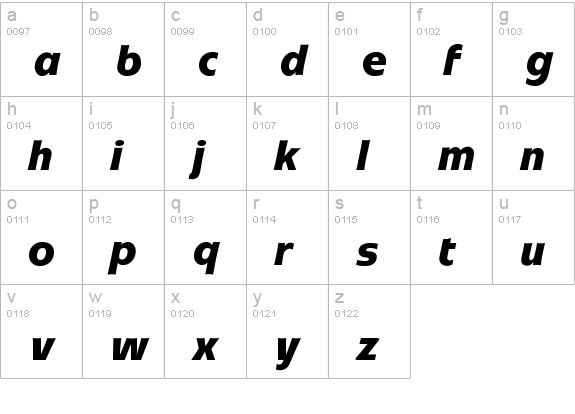
Introducing MixageBlackItalic font, a sleek and sophisticated typeface perfect for adding a touch of elegance to your design projects. This modern font exudes confidence and style with its bold yet graceful italicized characters. The MixageBlackItalic font is ideal for creating eye-catching headlines, branding materials, and more. What's more, this fabulous font is available for free download at FontsMarket.com. Don't miss out on the opportunity to enhance your designs with MixageBlackItalic - grab your free copy today and elevate your creative projects to the next level!